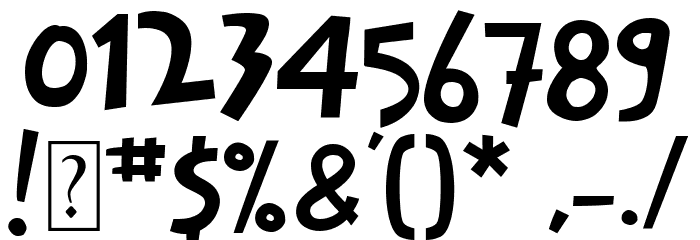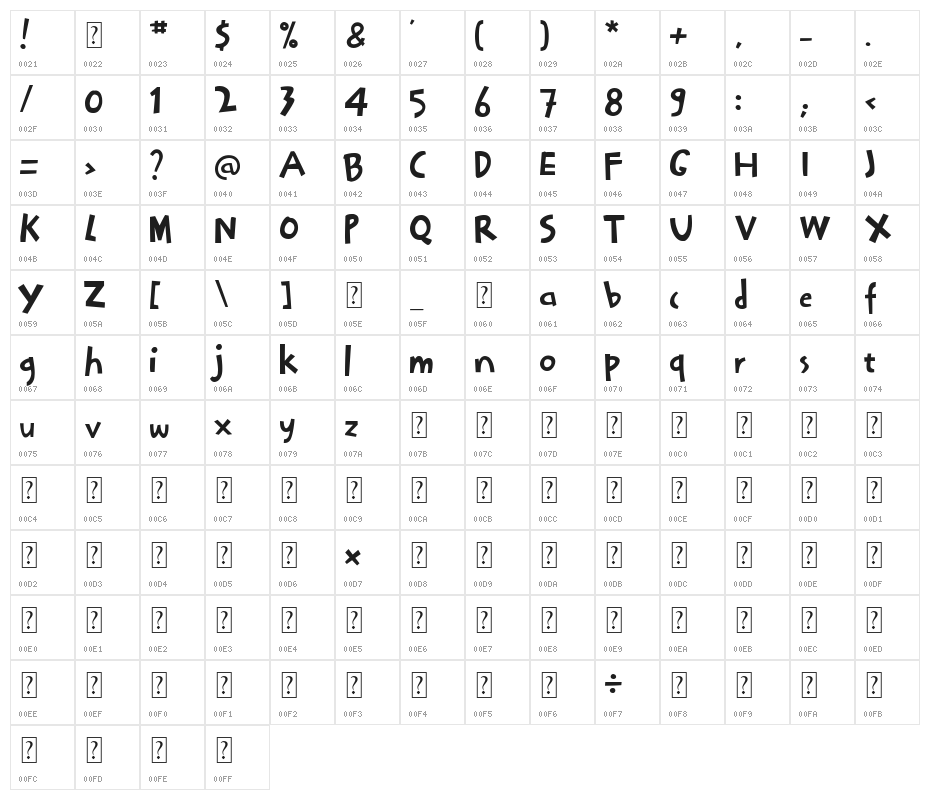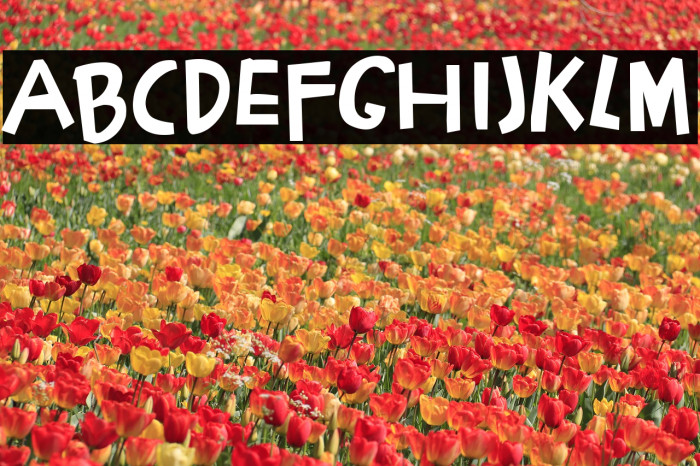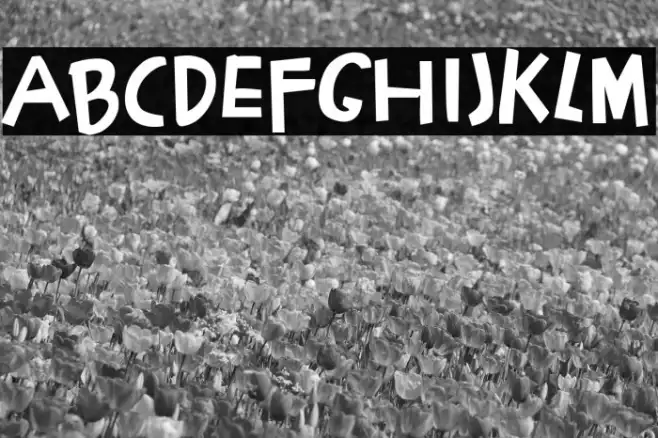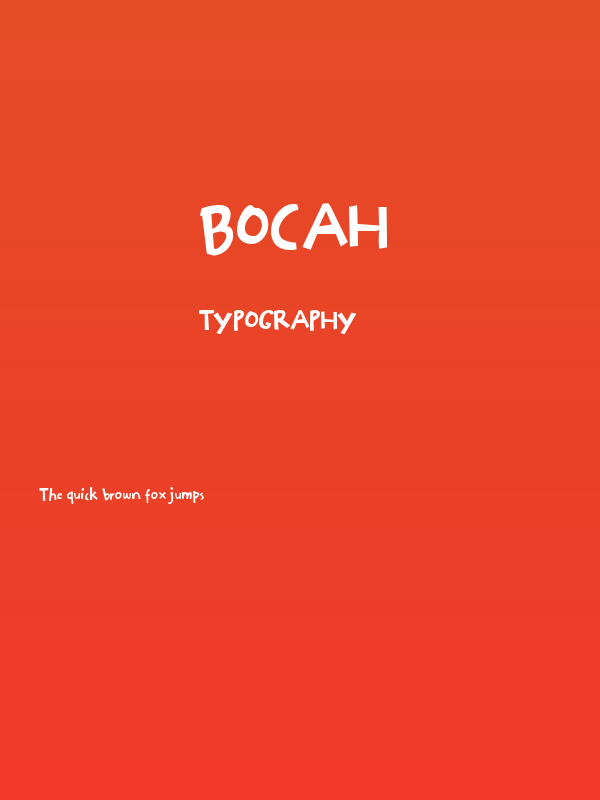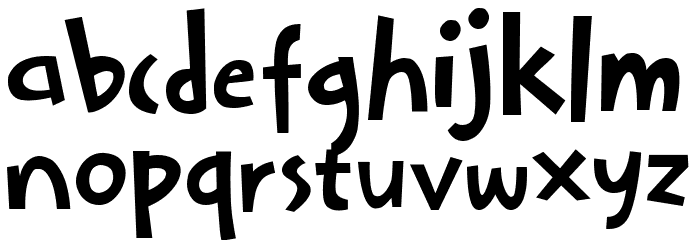
Bocah Font
Bocah Description
This playful and whimsical font features bold, irregular strokes that give it a lively and dynamic appearance. The characters are slightly tilted and vary in width, adding to the casual and informal feel. The uppercase letters are bold and prominent, while the lowercase letters maintain a consistent style with a touch of quirkiness. The numbers and special characters are designed to match the overall playful theme, making this font ideal for projects that require a fun and engaging look.